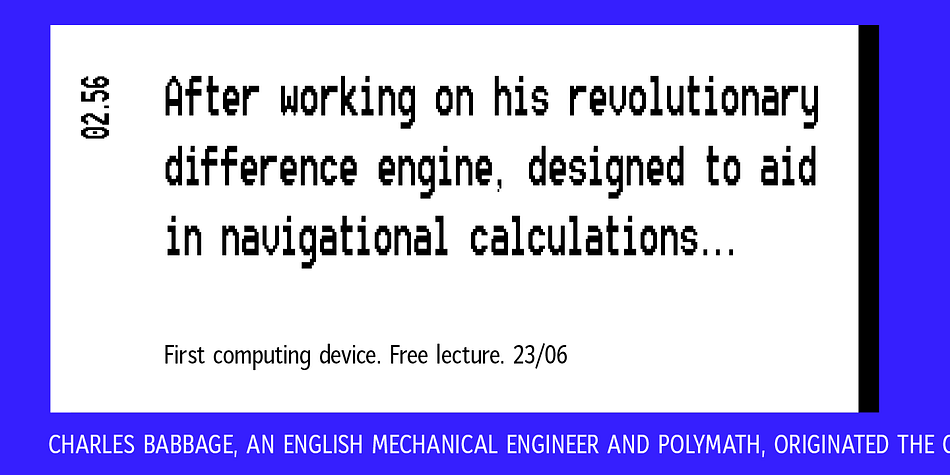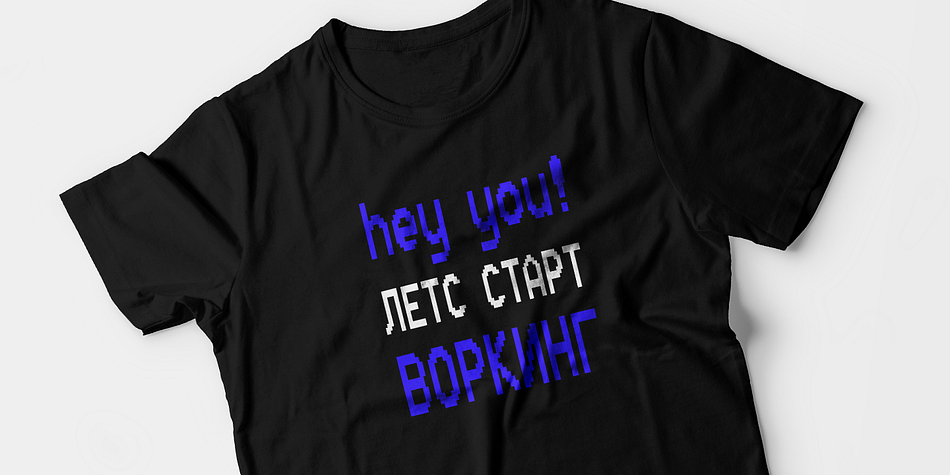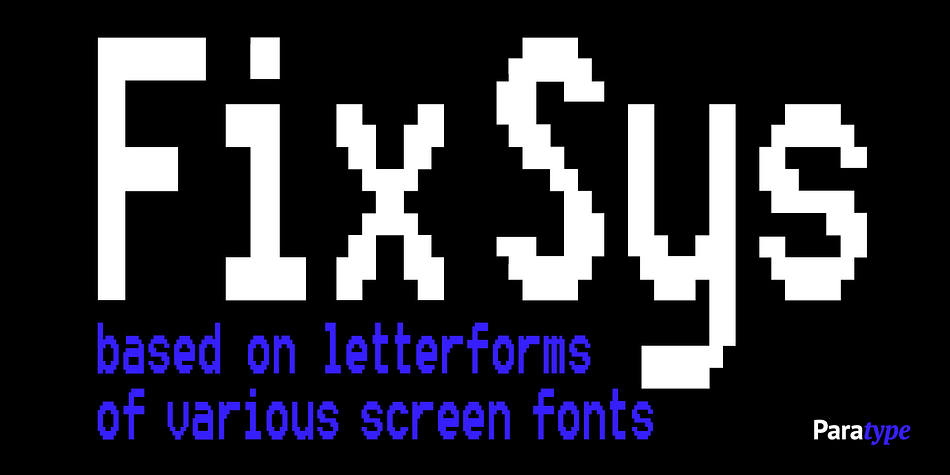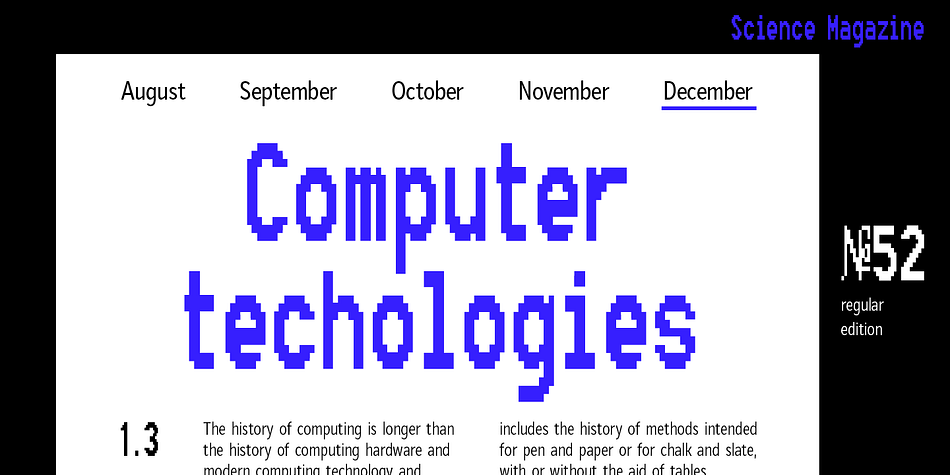
Designed by Alexander Tarbeev, FixSys is a pixel font published by ParaType.
Developed for ParaType (ParaGraph) in 1995 by Alexander Tarbeev, based on letterforms of various screen fonts. For use in advertising and display typography.